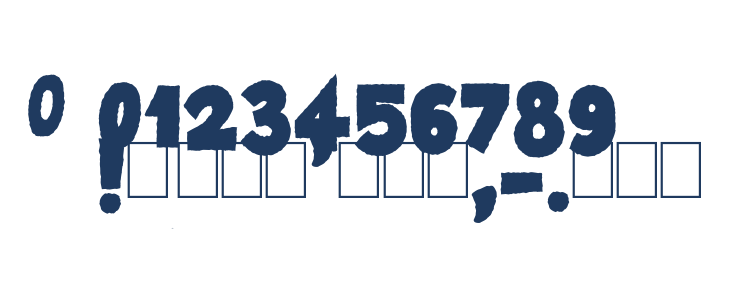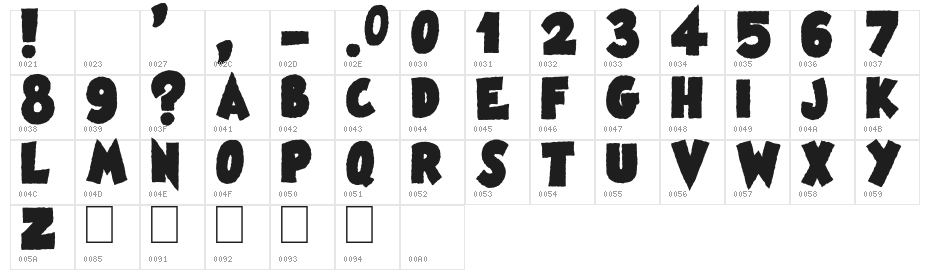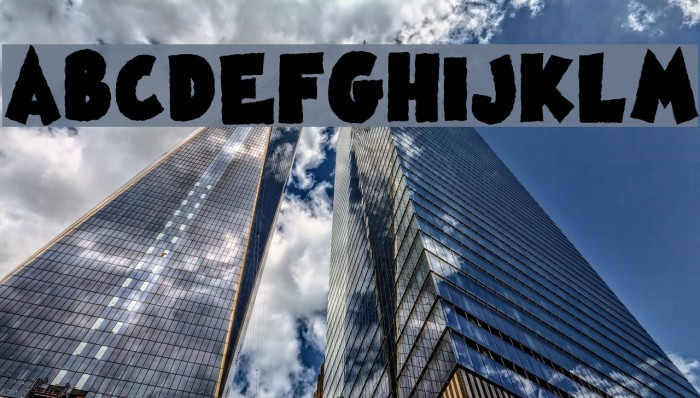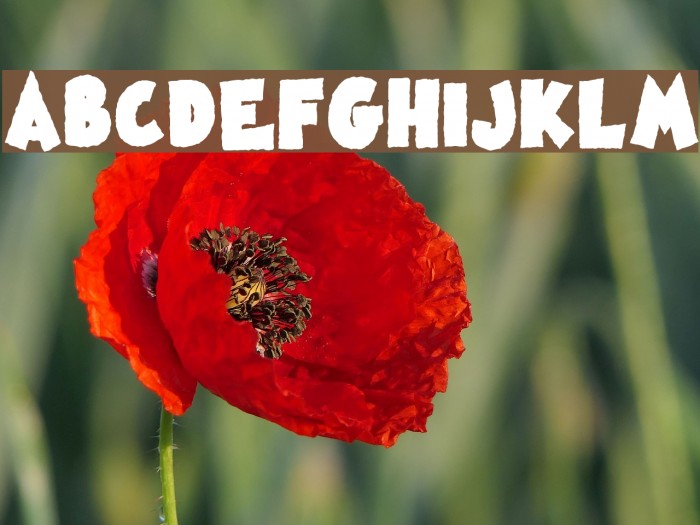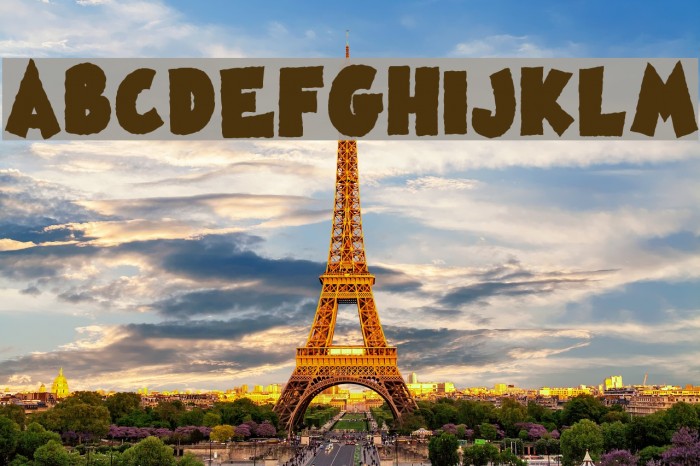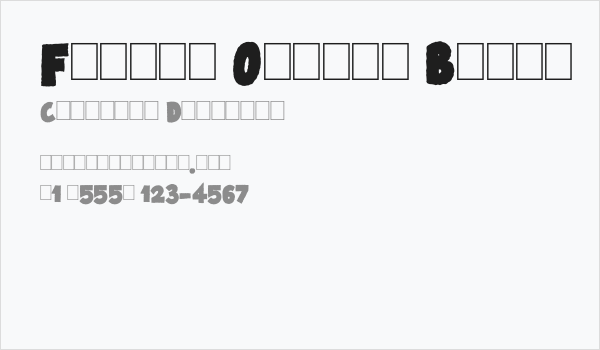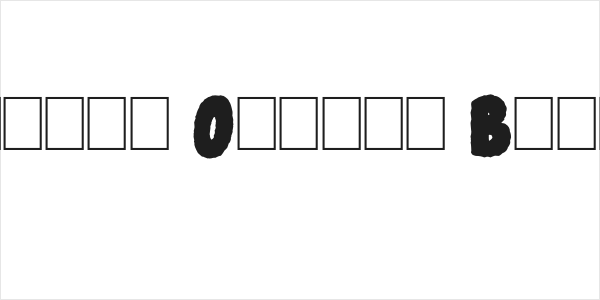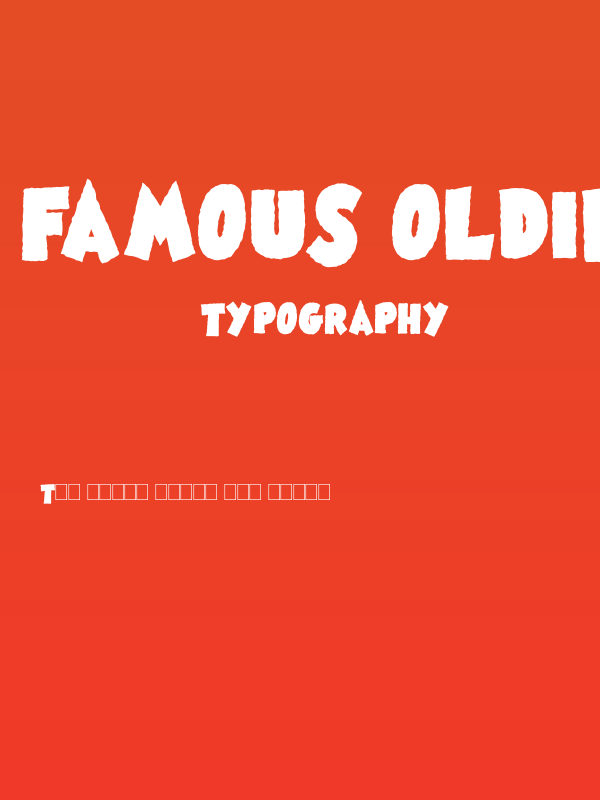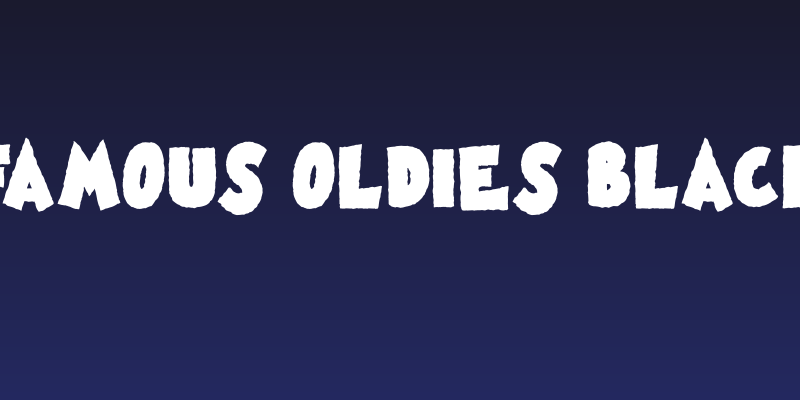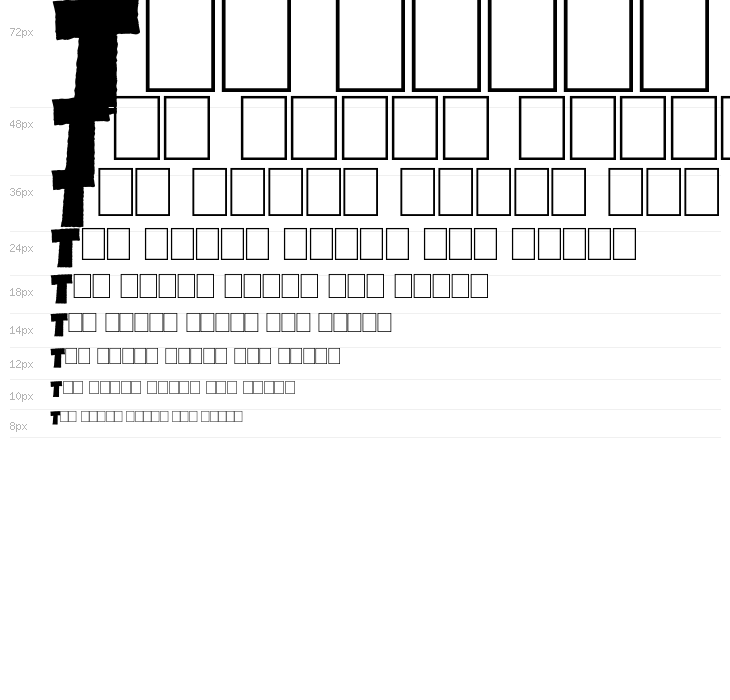
Famous Oldies Black Font
Famous Oldies Black Description
This font features a bold and playful design with a distinctly retro vibe. The characters are thick and slightly irregular, giving them a hand-crafted appearance. The uppercase letters are particularly striking, with exaggerated angles and a strong presence. The numbers and special characters maintain the same boldness, ensuring consistency across all elements. This font's unique style makes it stand out, perfect for projects that require a touch of vintage flair. Its boldness and character make it suitable for eye-catching headlines and creative designs.
Overall StyleVintage
Proposed ProjectsIdeal for vintage-themed posters, retro branding, playful packaging designs, and bold headlines.